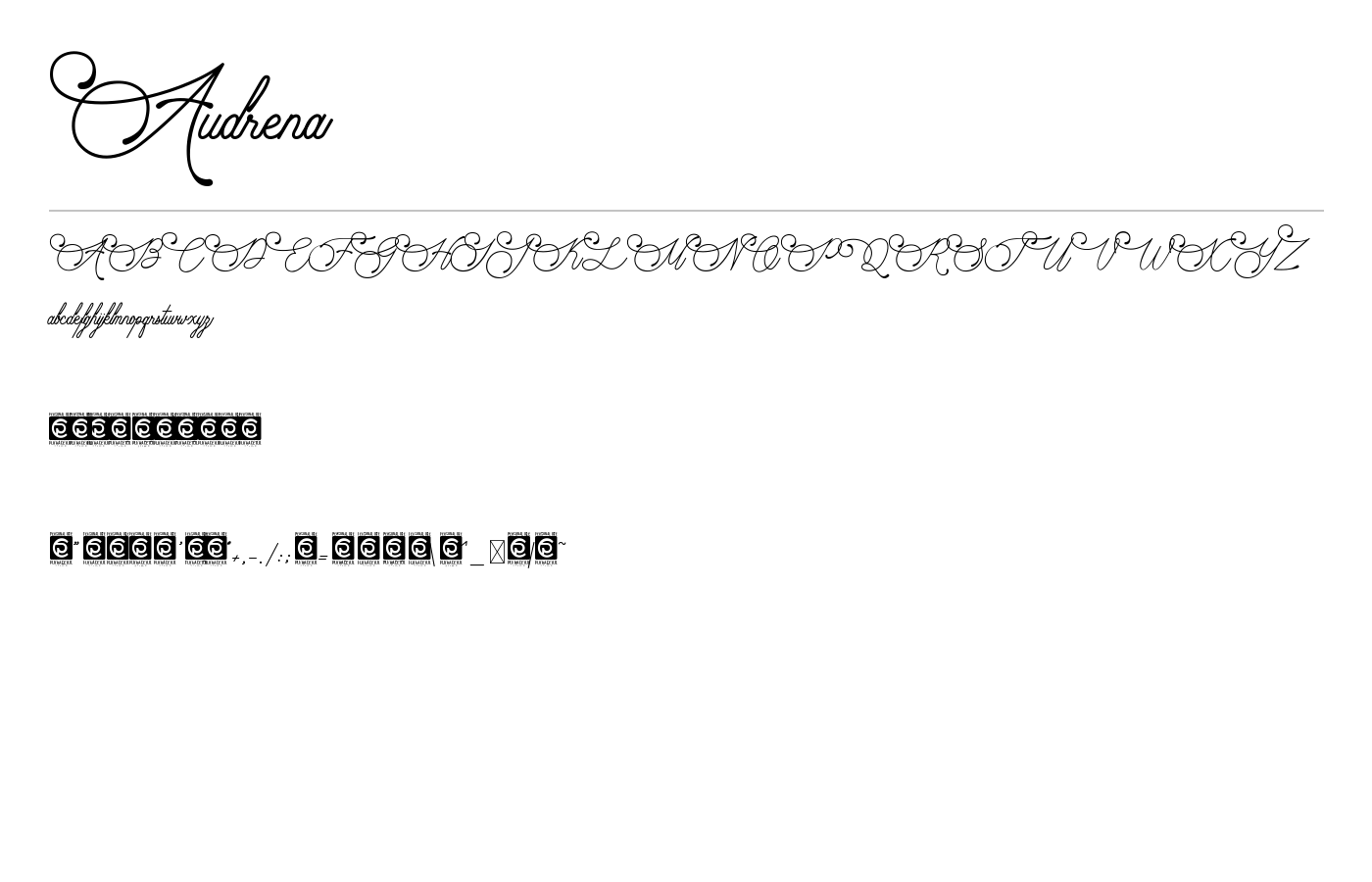
Audrena is an elegant script font characterized by its intricate, flowing strokes and delicate swashes that give it a refined, luxurious appearance. With fine, graceful lines and highly decorative uppercase letters, it suits sophisticated branding, wedding invitations, and upscale editorial uses where a touch of classic charm and femininity is desired. This font works best in display settings, adding a stylish and distinctive flair to logos and headlines.
Audrena Font
About Audrena Font
| Font family | Audrena Font |